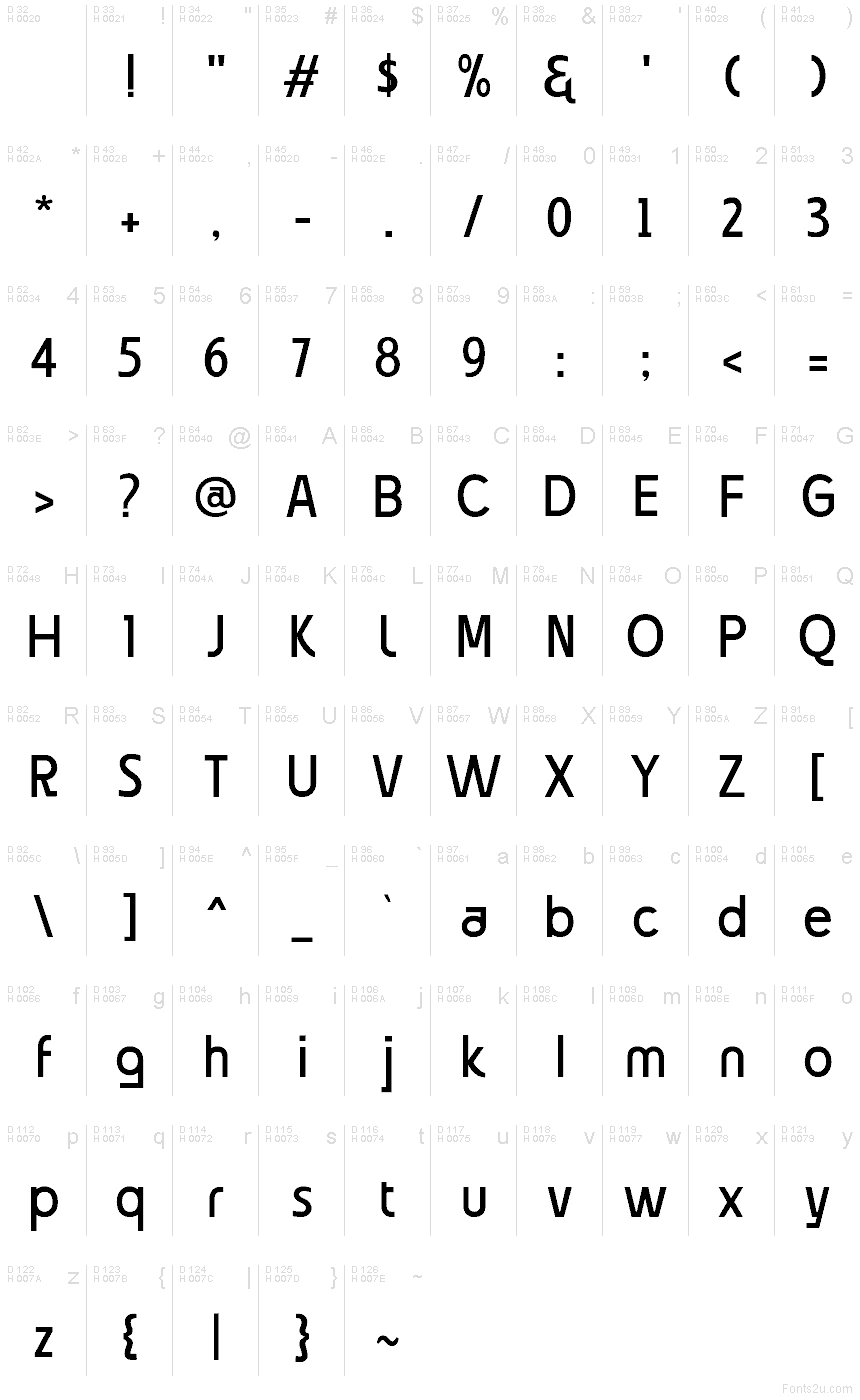
Rogicha Regular
Rogicha font by Wildan Type is a modern sans-serif display font with a geometric character design. Rounded shapes and sharp edges add the finishing touches to each letter and number, which are perfectly aligned with variance in style that include regular to experimental letter forms. It carries an overall modernist and minimalist character throughout the letters.
Use Rogicha in branding projects, logos, labels, magazines, posters, flyers, advertisements, packaging designs for big marketing campaigns or small product lines. The free sans serif font will work nicely in book covers too as well as any other typographic project.